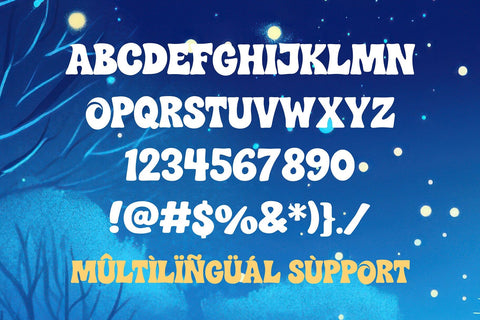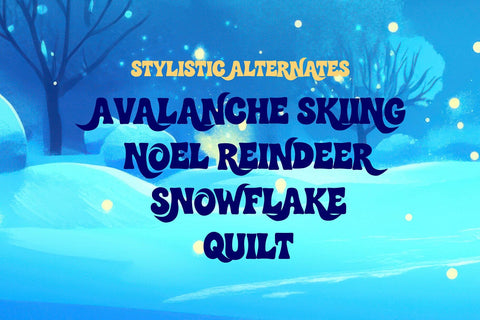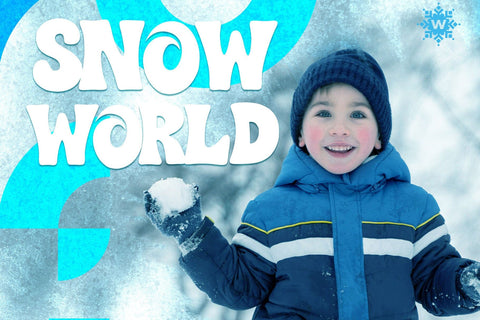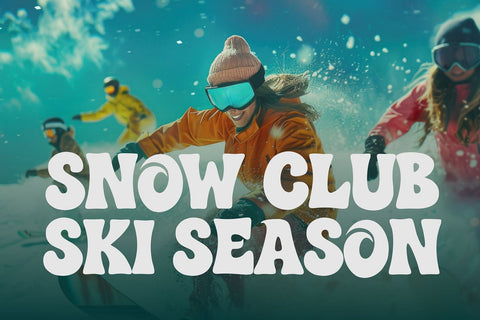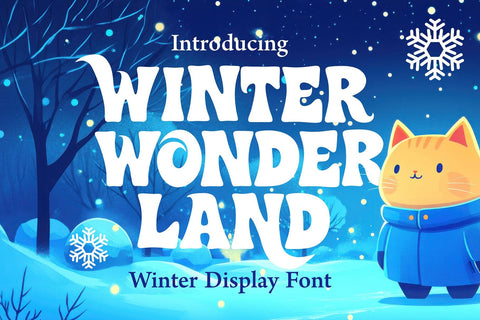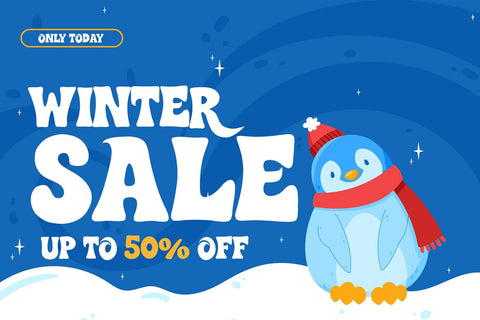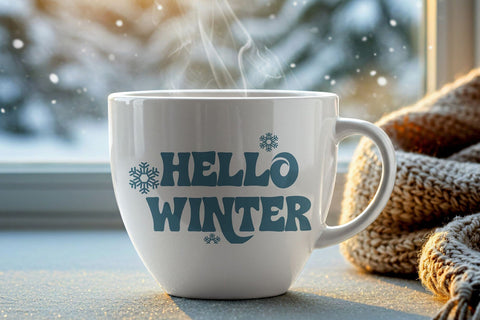
Winter Wonderland - Decorative Display Font
Winter Wonderland is a playful winter display font full of magic and festive charm. Its whimsical shapes and frosty curves make it ideal for Christmas cards, holiday packaging, party invitations, kids’ storybooks, posters, and seasonal branding. This typeface includes uppercase, lowercase, numerals, punctuation, and multilingual support, making it versatile for global use. Available in OTF and TTF formats, it’s fully compatible with Adobe Illustrator, Photoshop, InDesign, CorelDRAW, Affinity, and other design software. Add the sparkle of winter to your creative projects with Winter Wonderland.